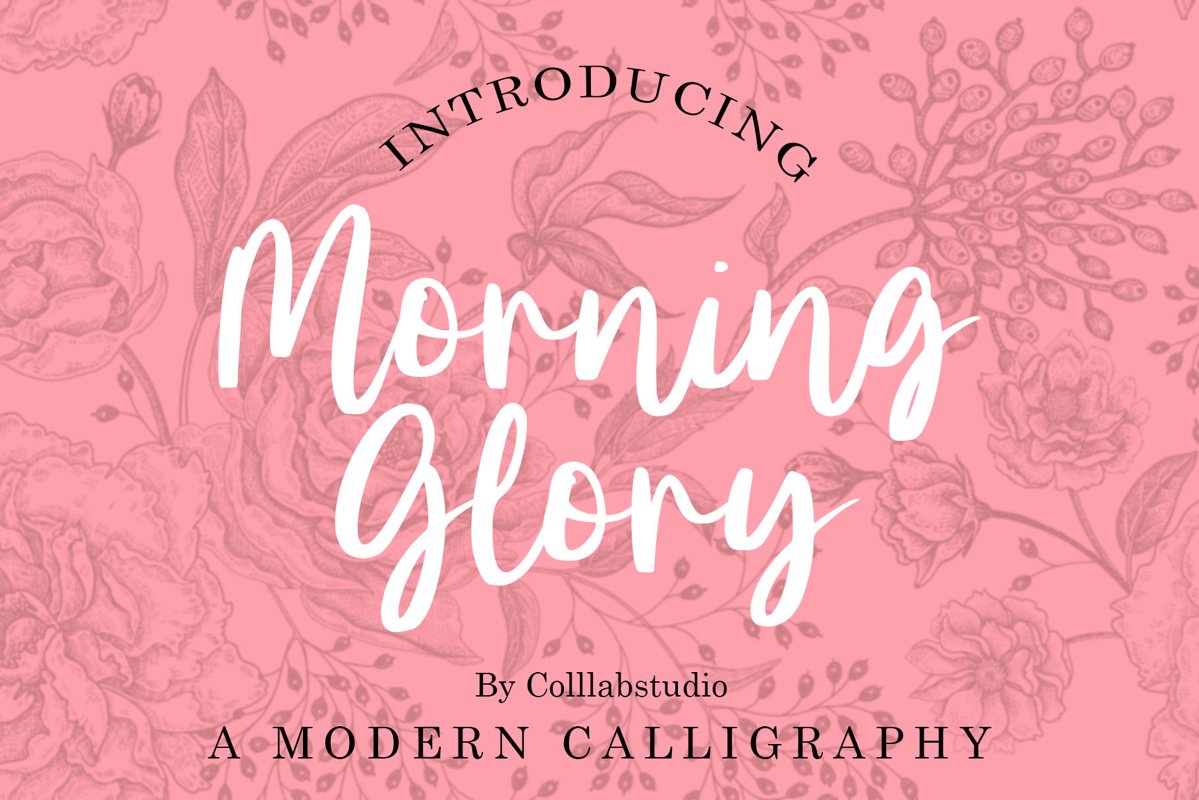
Morning Glory - A Modern Calligraphy Font
Morning Glory
Morning Glory is A Modern Calligraphy Font. It is a sweet and flowing font. Its natural and unique style makes it incredibly fitting to a large pool of designs. The only limit is your imagination!
Included Swashes and Multilingual Support